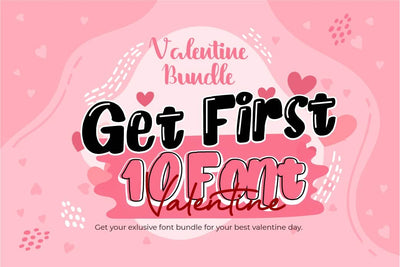
GET FIRST!!! SPECIAL 10 VALENTINE FONT
GET FIRST!!! SPECIAL 10 VALENTINE FONT – In this bundle include handwritten font, signature font, display font, with an elegant style that can enhance the quality of your Christmas designs.
GET FIRST!!! SPECIAL 10 VALENTINE FONT – This Font is perfect for designs, logos, social media, brands, advertisements, product designs, handwritten quotes, product packaging, headers, posters, merchandise, and other designs.